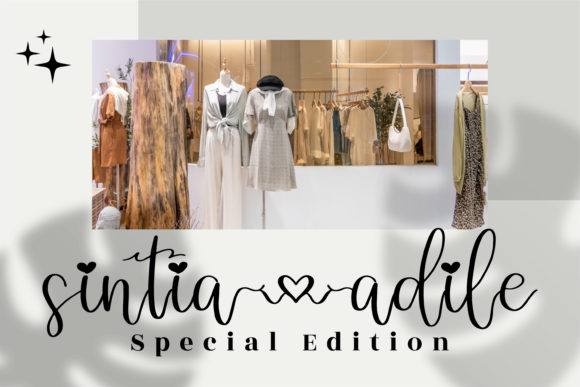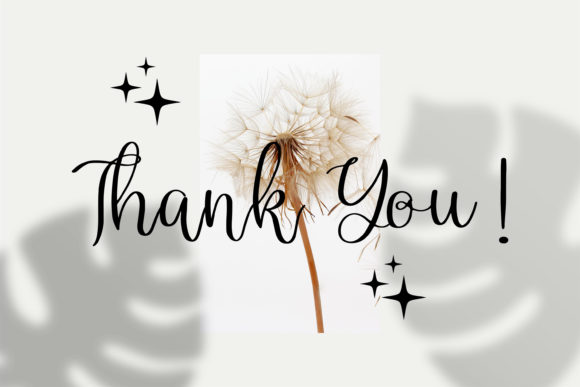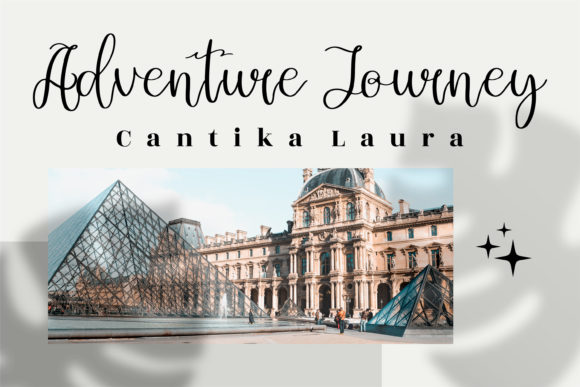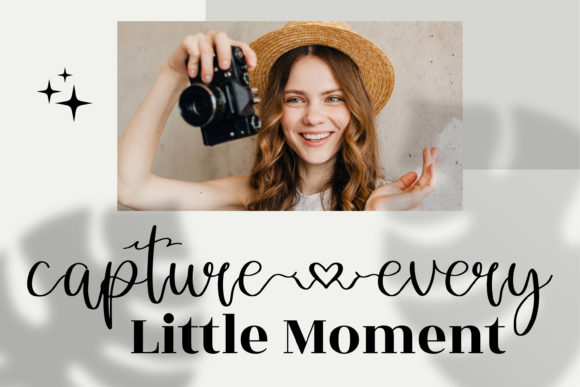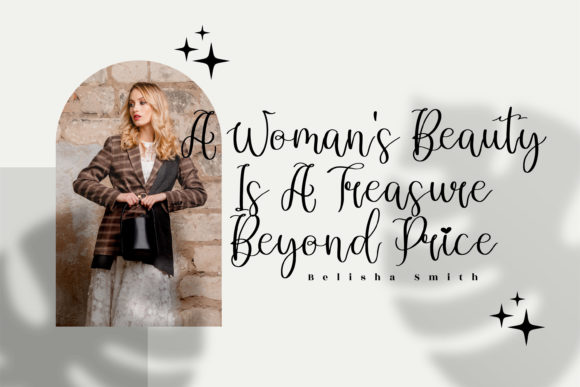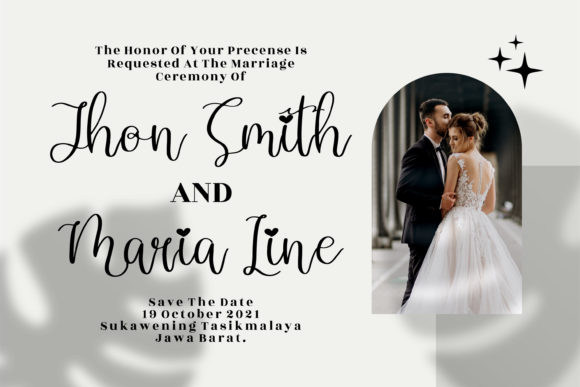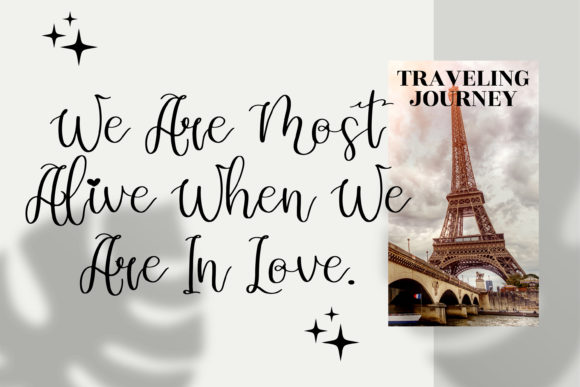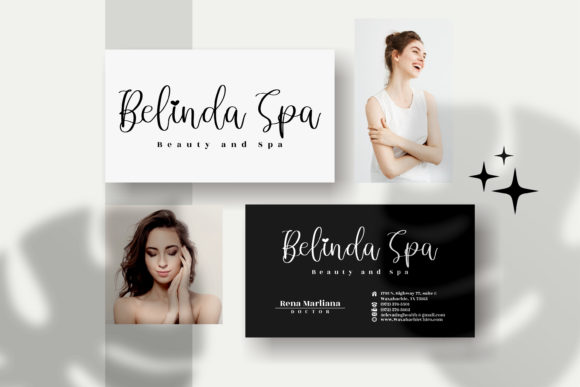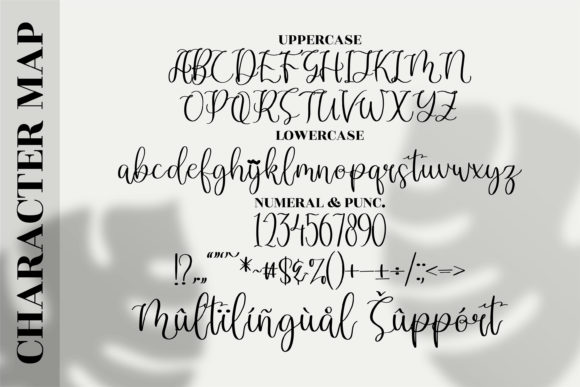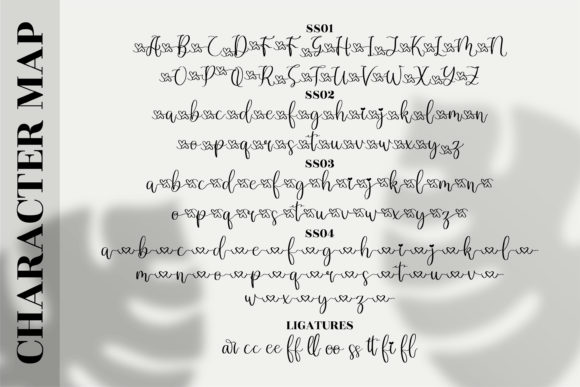
Dandelion Pelangi Font
About Dandelion Pelangi Font
“Dandelion Pelangi” is a captivating and romantic calligraphy typeface that will bring a touch of luxury to your design projects. With its beautifully crafted characters that dance along the baseline, this font exudes elegance and sophistication. It is the perfect choice for creating stunning designs that evoke a sense of romance and charm.
One of the standout features of “Dandelion Pelangi” is its ability to add a touch of luxury to any project. Whether you’re working on wedding invitations, branding materials, greeting cards, or any other design, this font elevates the overall aesthetic and creates a sense of opulence. Its intricate ligatures and glyphs further enhance its beauty and allow you to add intricate details to your designs effortlessly.
The flowing and graceful nature of “Dandelion Pelangi” makes it an ideal choice for projects that require a romantic and whimsical touch. Its delicate strokes and elegant curves give your designs a sense of movement and beauty. Whether you’re designing love letters, quotes, or any other project that requires a personal and heartfelt touch, this font adds a touch of magic.
The PUA encoding of “Dandelion Pelangi” makes it easy to access all of its amazing glyphs and ligatures. This means you can fully explore the font’s potential and take advantage of its various decorative elements to create unique and eye-catching designs. From swashes and flourishes to alternate letterforms, the possibilities are endless with this font.
In summary, “Dandelion Pelangi” is a romantic and sweet calligraphy typeface that brings a touch of luxury to any design project. Its beautifully dancing characters, intricate ligatures, and PUA encoding allow you to create stunning and personalized designs effortlessly. Whether you’re working on wedding invitations, branding materials, or any other project that requires an elegant and romantic feel, “Dandelion Pelangi” will add a spark of luxury and beauty.